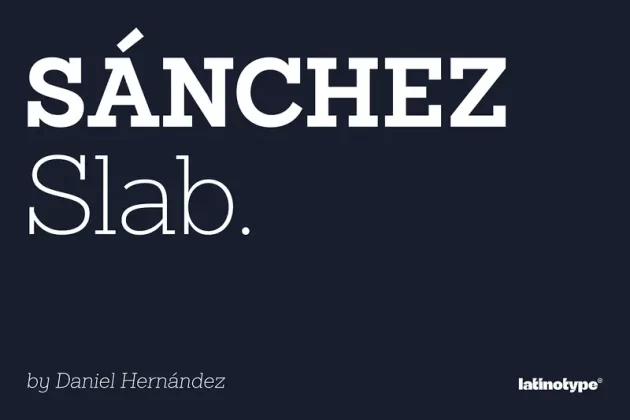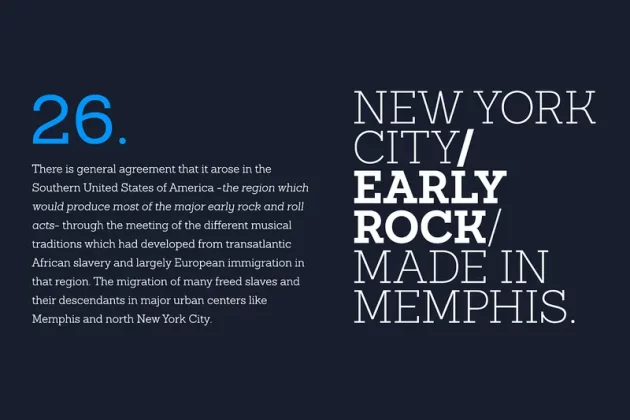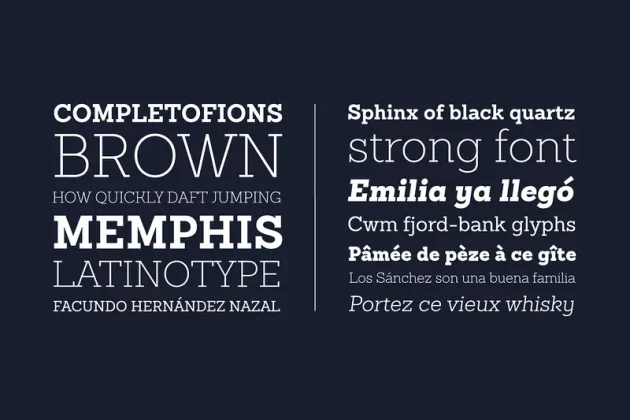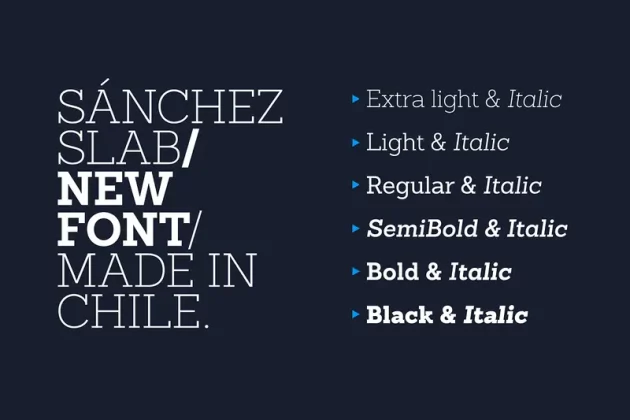
Sánchez, designed by Daniel Hernández, is a serif typeface belonging to the classification slab serif,
or Egyptian, that bears a strong resemblance to the iconic Rockwell.— offering contrast and balance
to the square structure. Sánchez Slab is a new version, more robust with straight edges, that give greater character and power. Sanchez Slab comprises 12 variants, ranging from extra light to black, each of the same x-height. Regular and Italic variants are available for free.